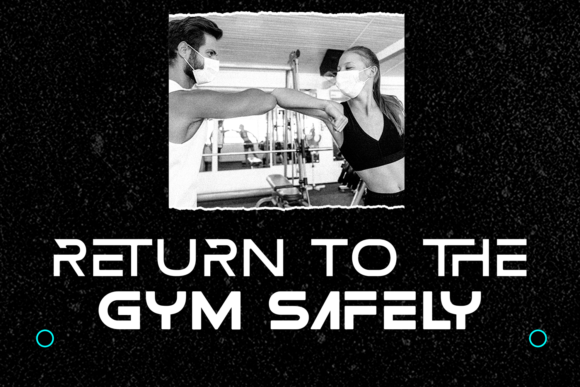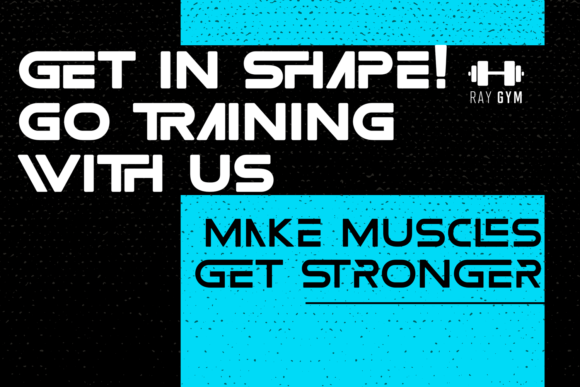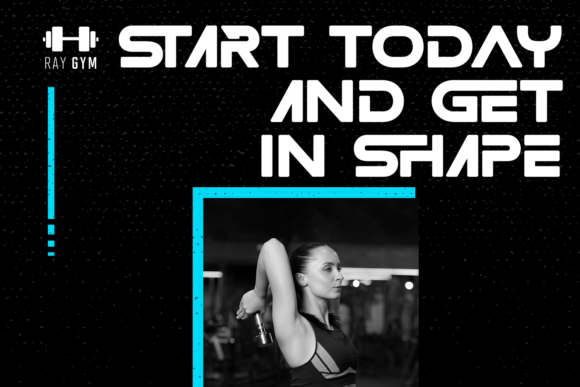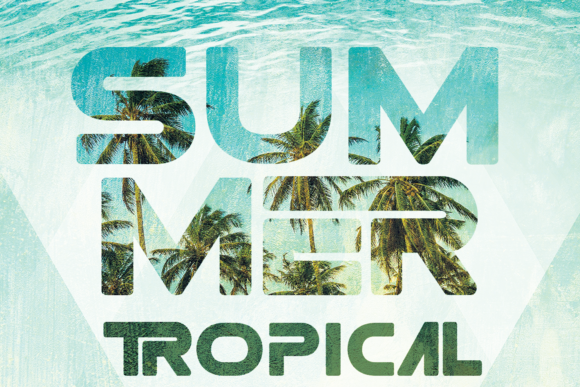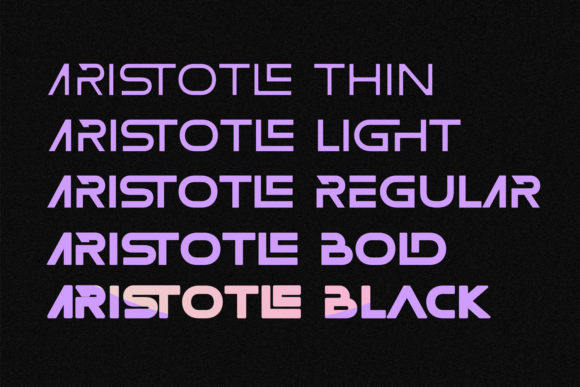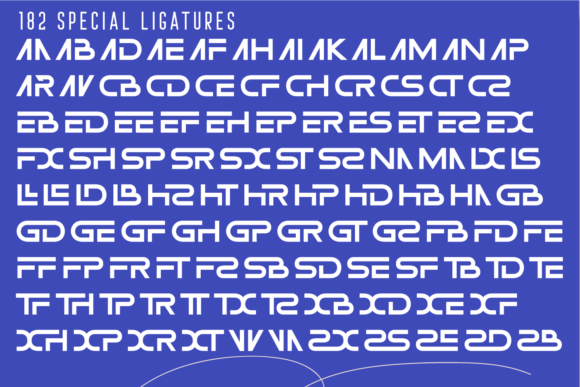
Introduction to Aristotle Font
Aristotle is a thick lettered and robotic display font.
This font is PUA encoded which means you can access all of the amazing glyphs and ligatures with ease Add it confidently to your favorite creations and let yourself be amazed by the outcome generated.
Key Features of Aristotle Font